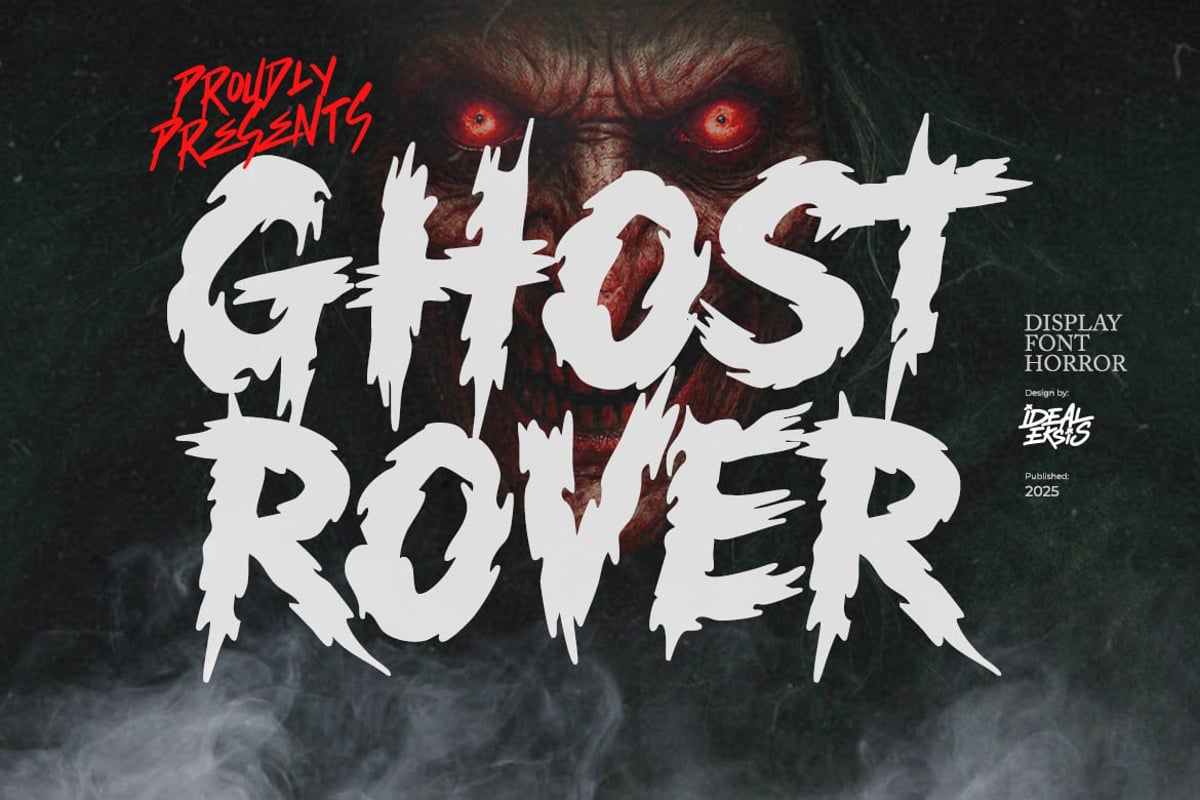
Ghost Rover - Horror Font
Unleash spine-chilling terror in your designs with Ghost Rover's dripping strokes and sinister details. This terrifying brush horror display font draws inspiration from haunted visuals and classic horror movie titles, delivering an authentic haunting atmosphere to any project. The typeface features menacing dripping strokes that create an unsettling, supernatural aesthetic perfect for striking visual impact. Ideal applications include Halloween posters, dark branding projects, thriller book cove...